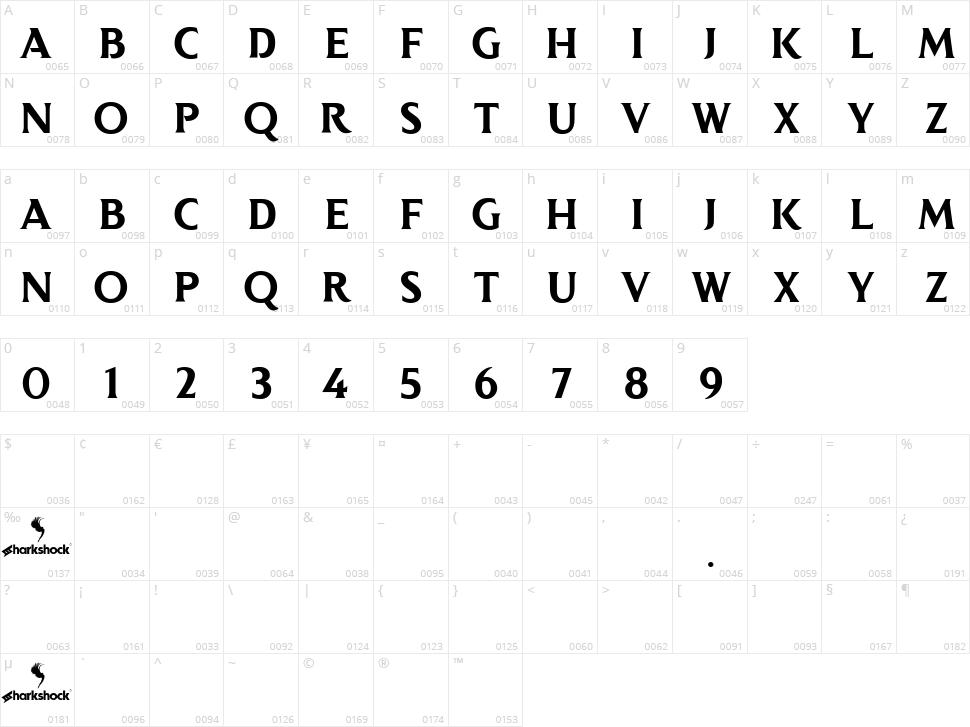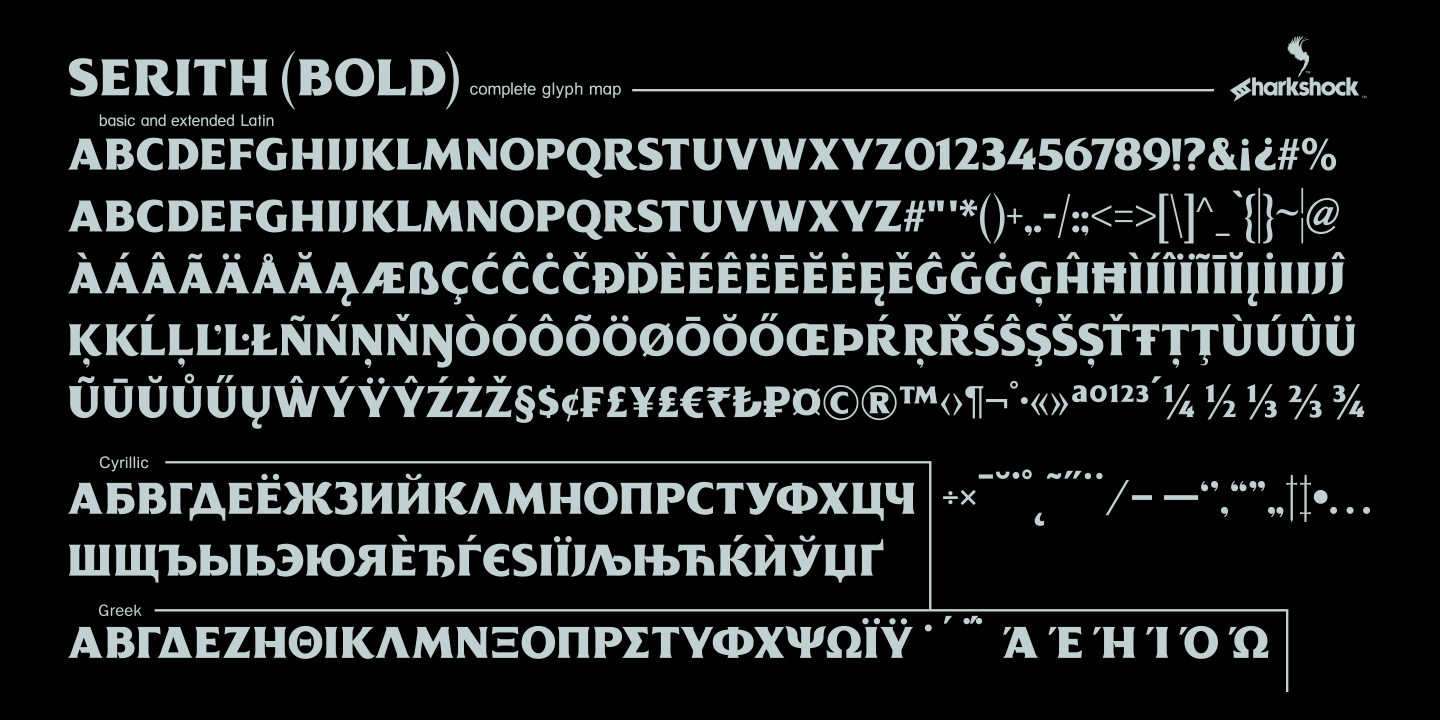
Designed by Dennis Ludlow
Serith is an all caps display font featuring a sharp, chiseled appearance. Inspiration came from various works with roots reaching back to the days of Greek engraving. This family is defined by wispy serifs, a high contrast, and a tendency for negative space. Capitals such as B, D, and H feature bowls or cross bars that are either partially or completely sheared off. Use it for a book cover, product label, or signage.
Serith is equipped with Basic and Extended Latin, diacritics, Cyrillic, Greek, punctuation, kerning, and is available in 2 different versions. Please check the glyph maps for all supported characters. The demo contains basic characters only. The full version is available by either purchasing a commercial license or a one-time $55 payment for personal use only. Email us or visit www.sharkshock.net/license for more information on licensing. Unauthorized usage of our intellectual property is strictly prohibited and may result in legal action.